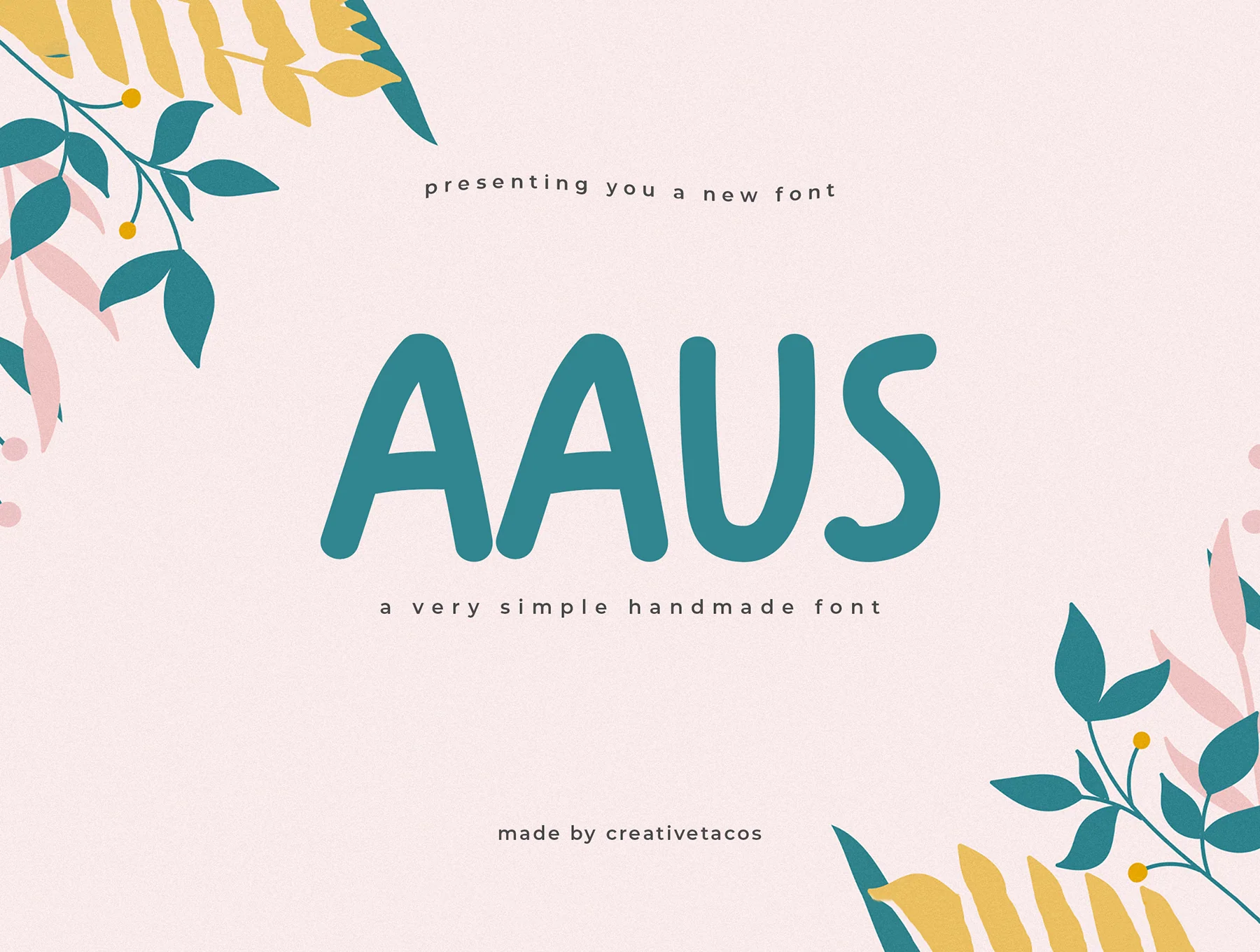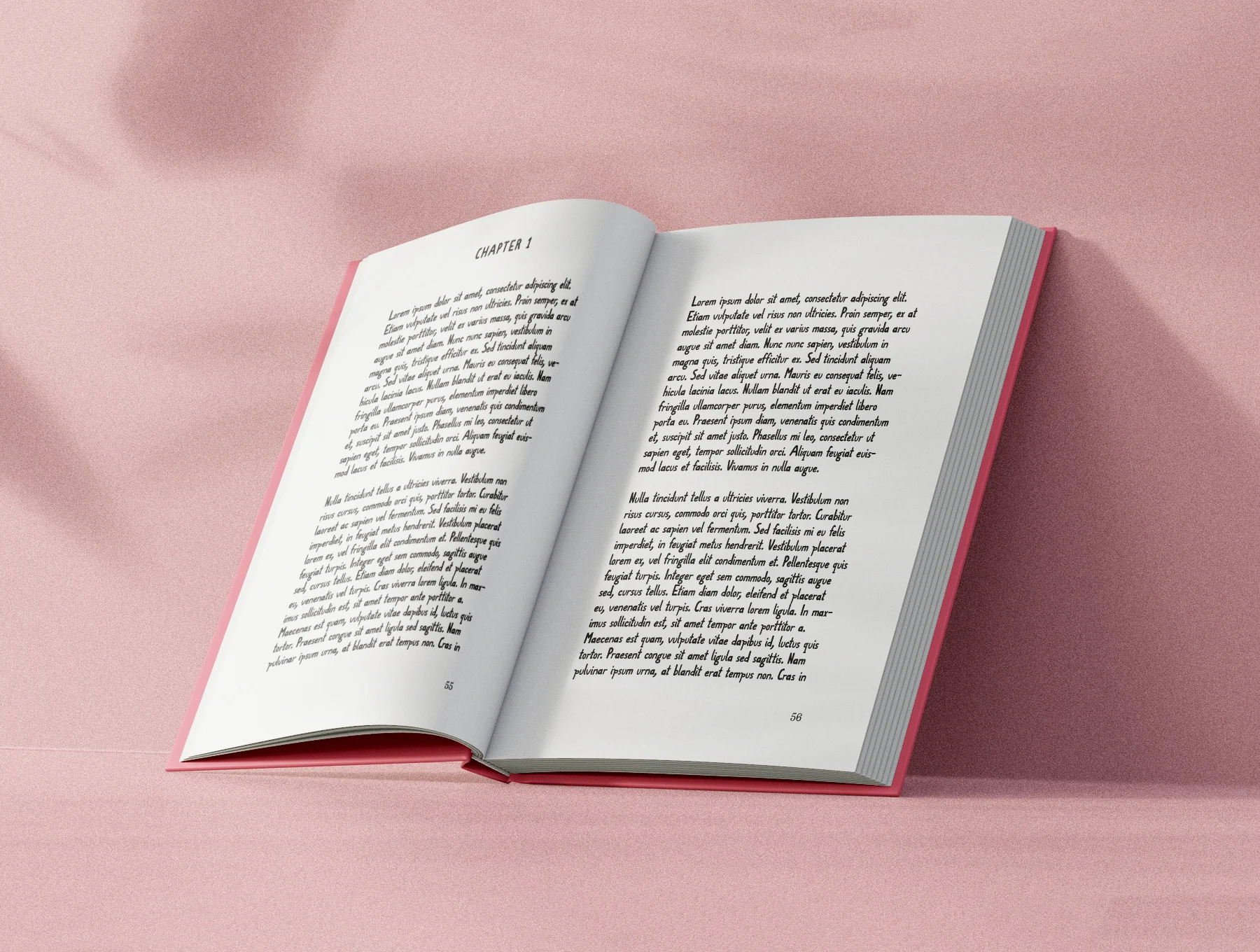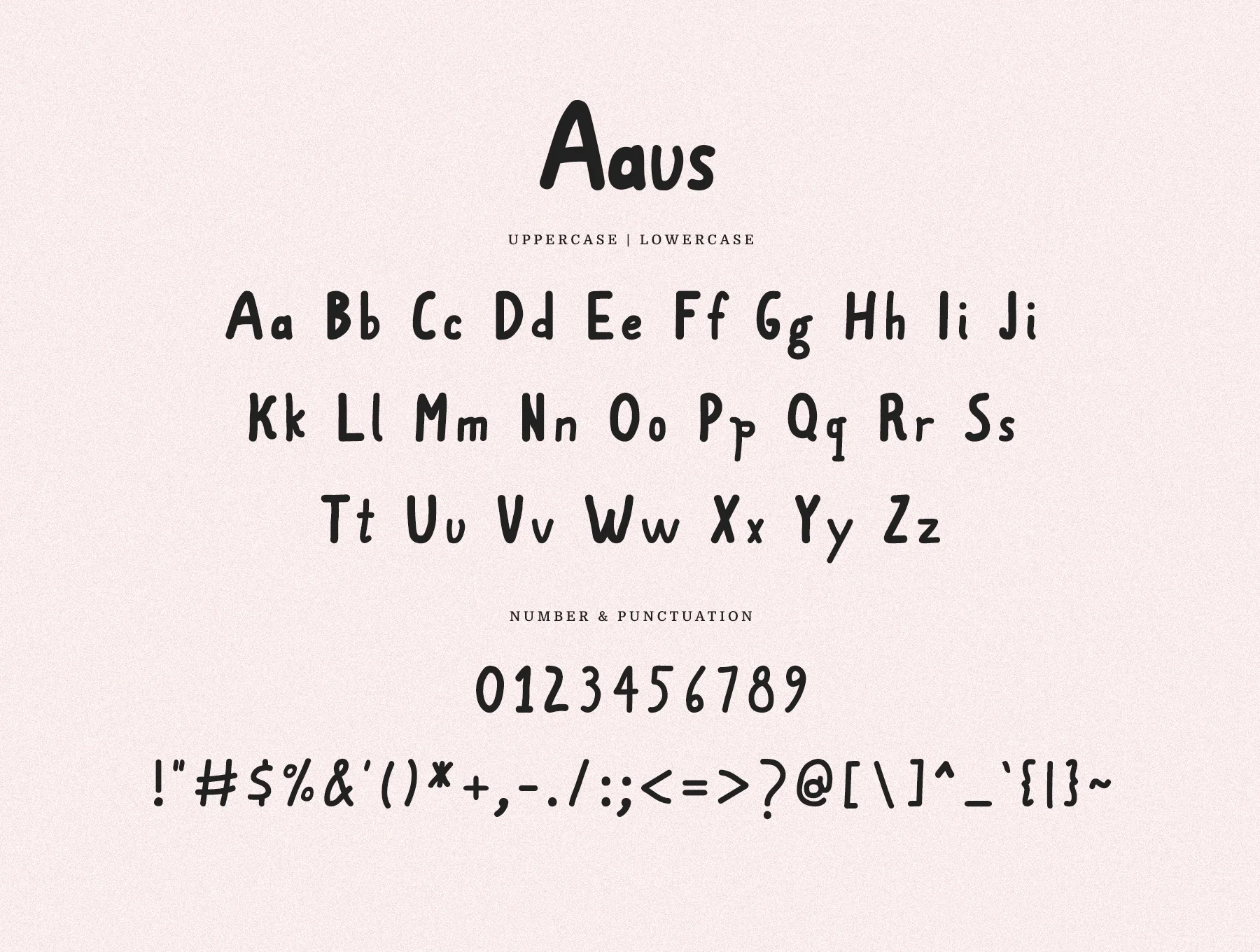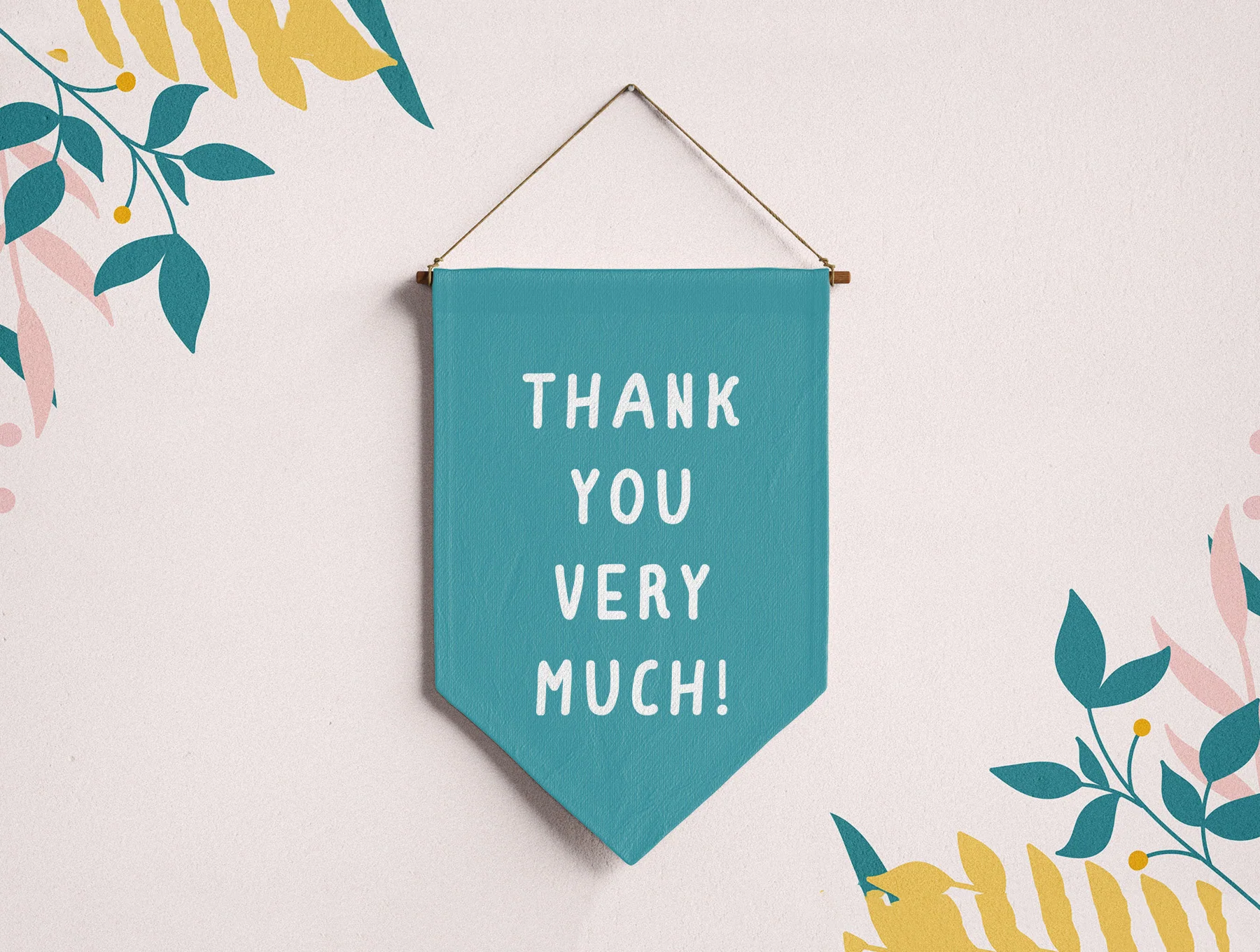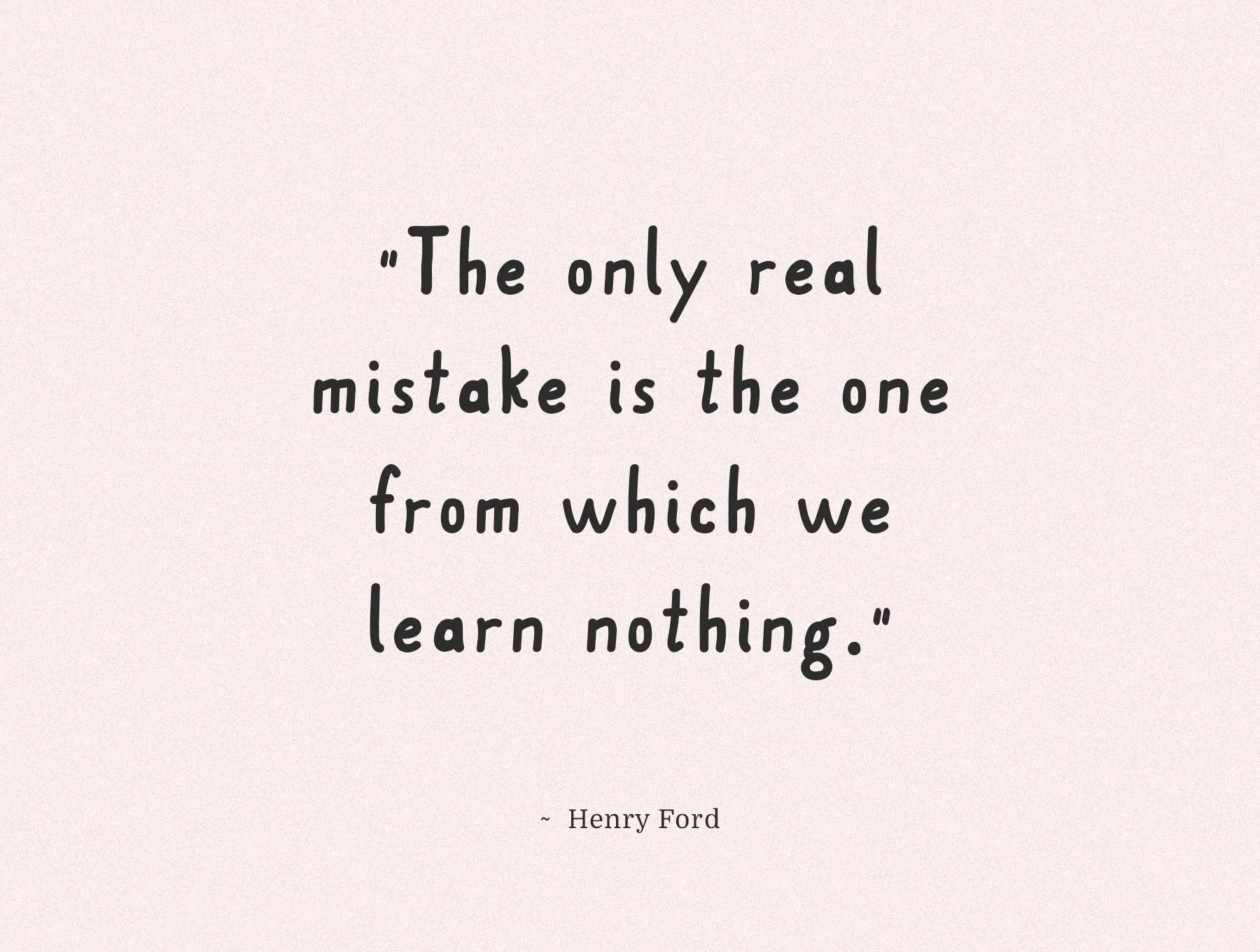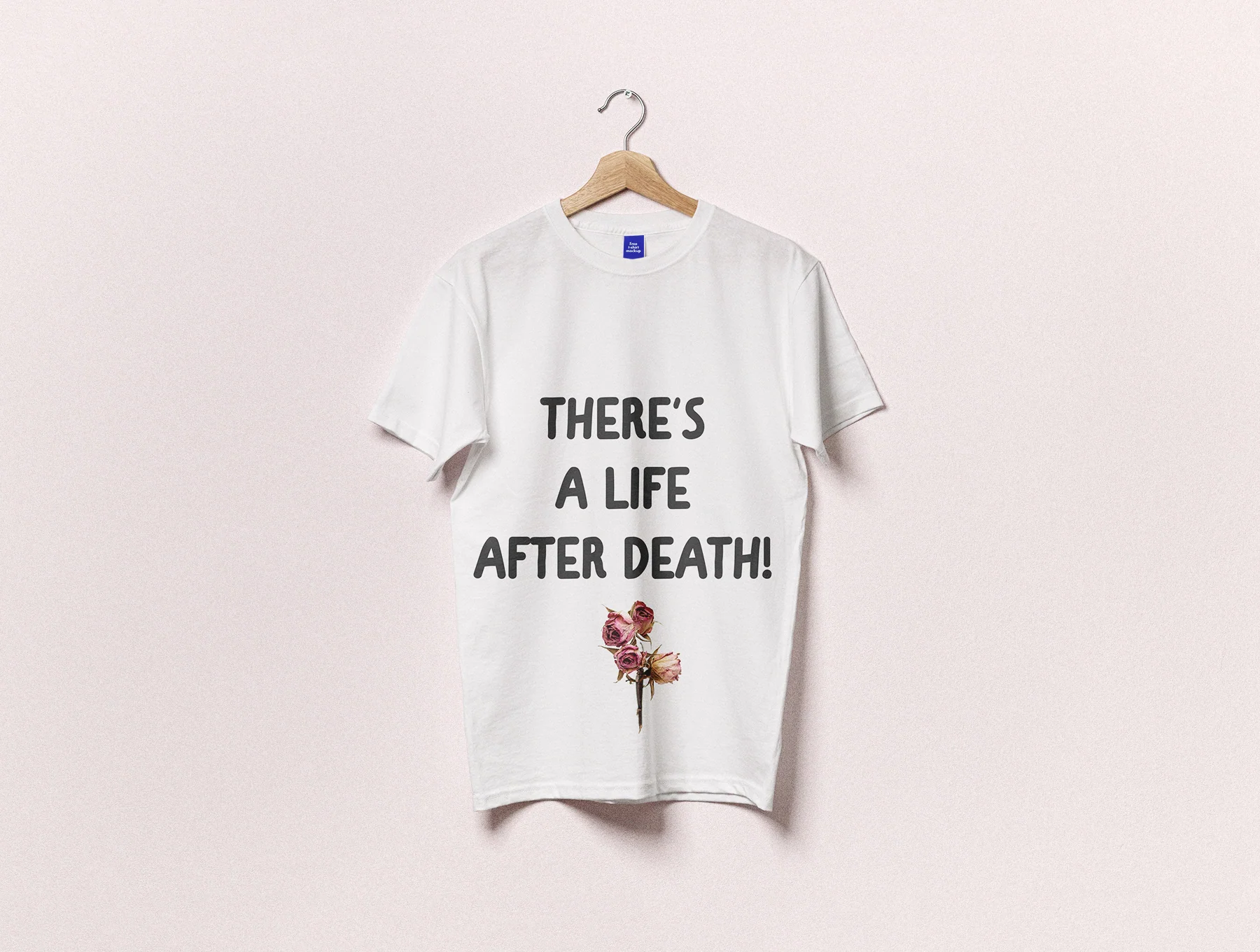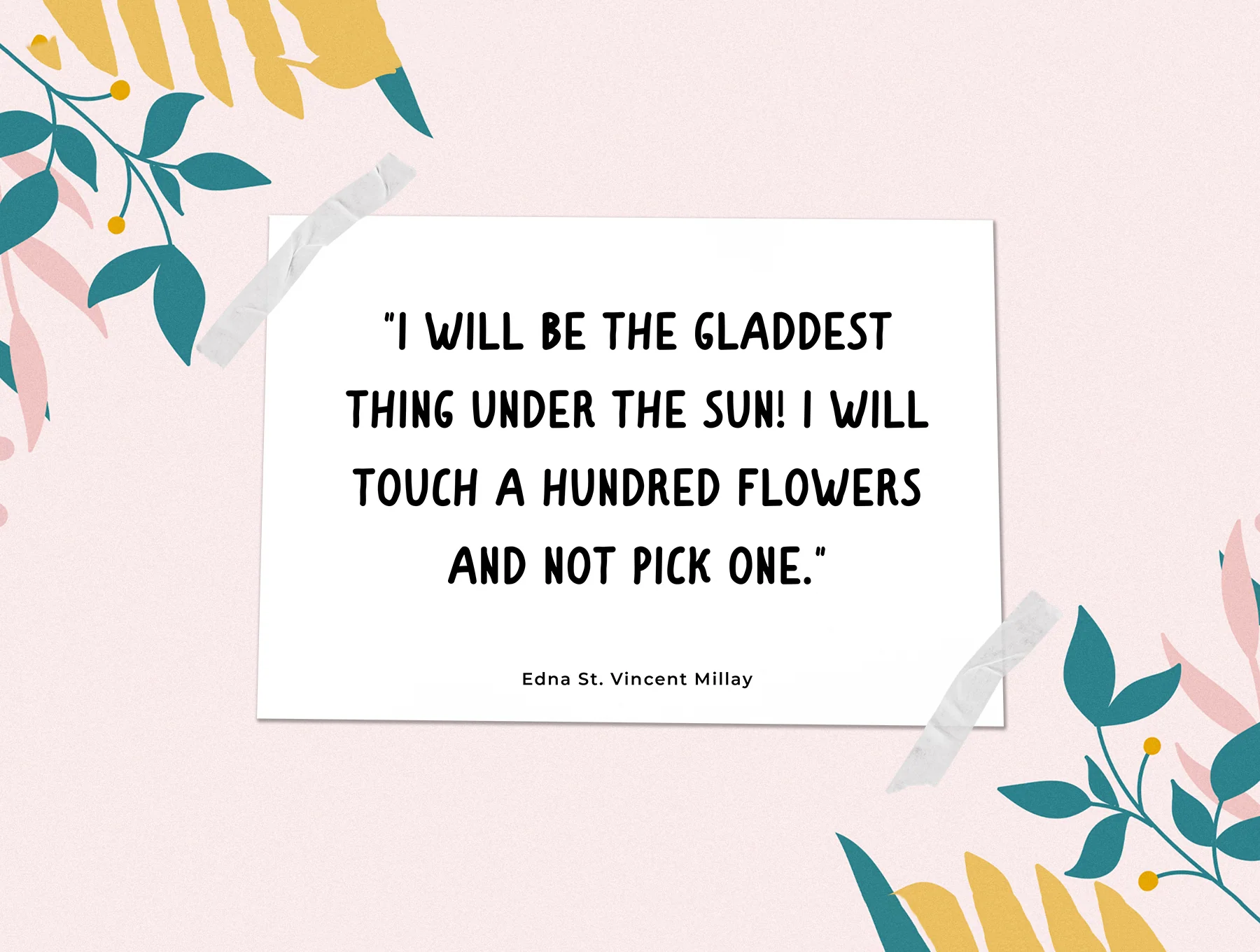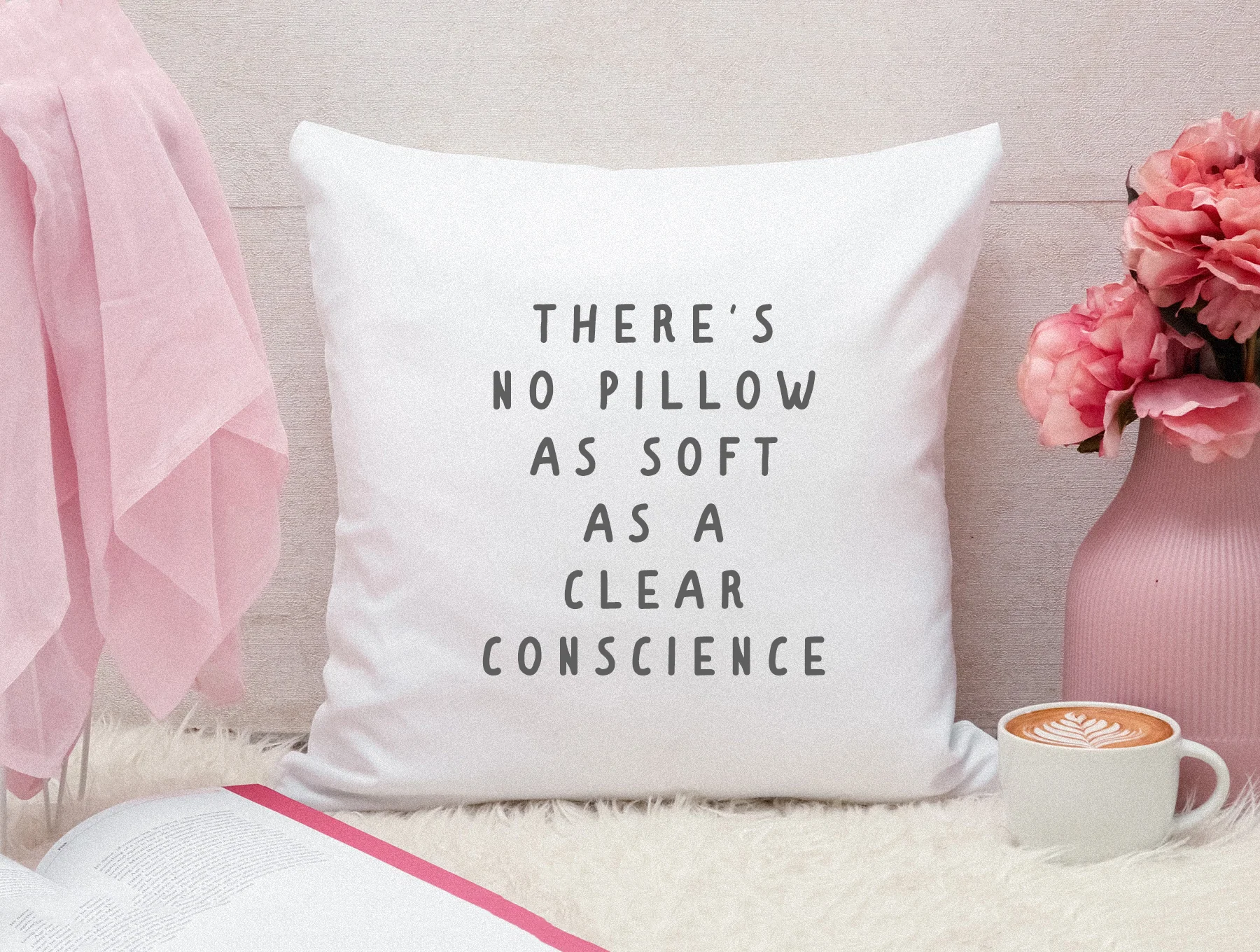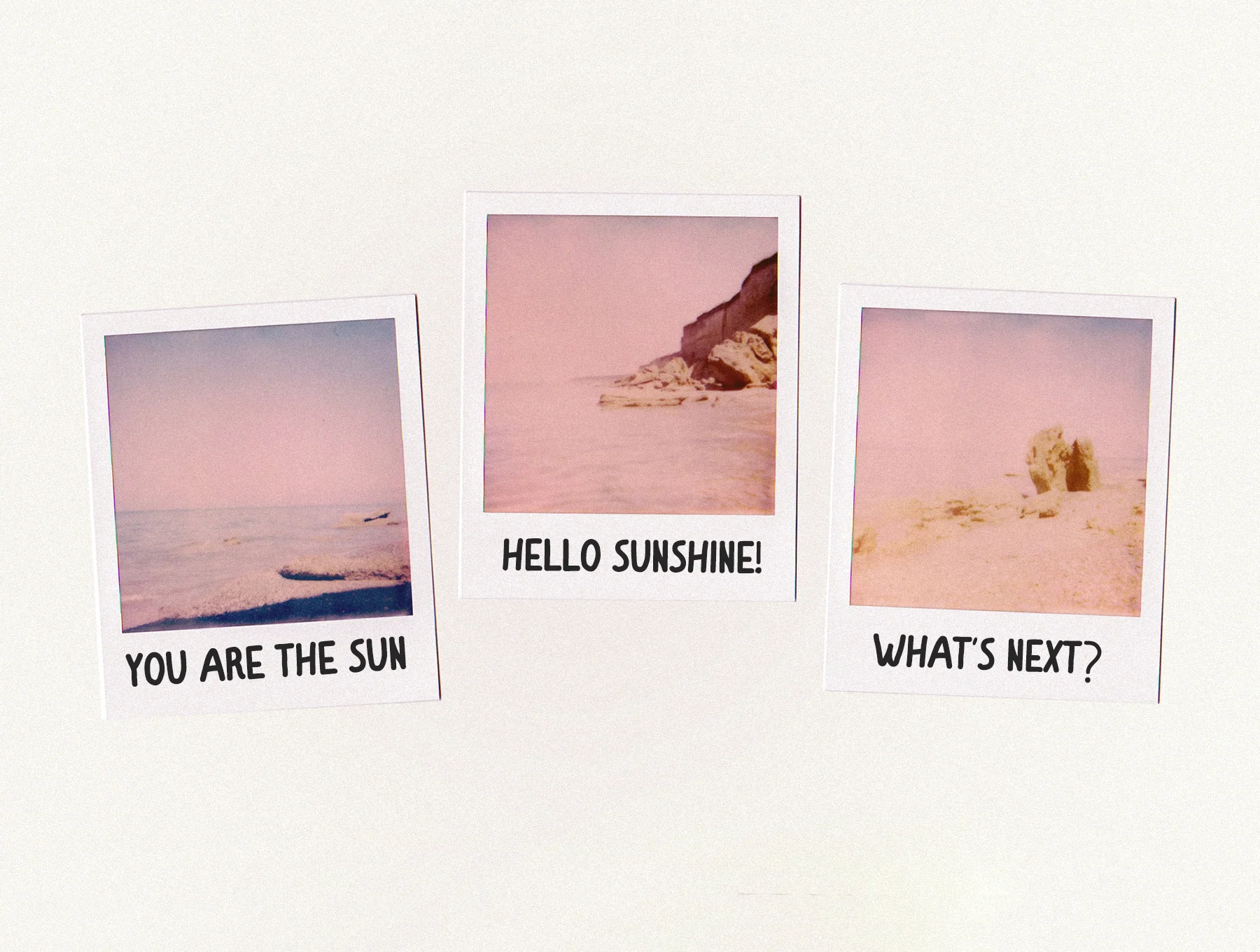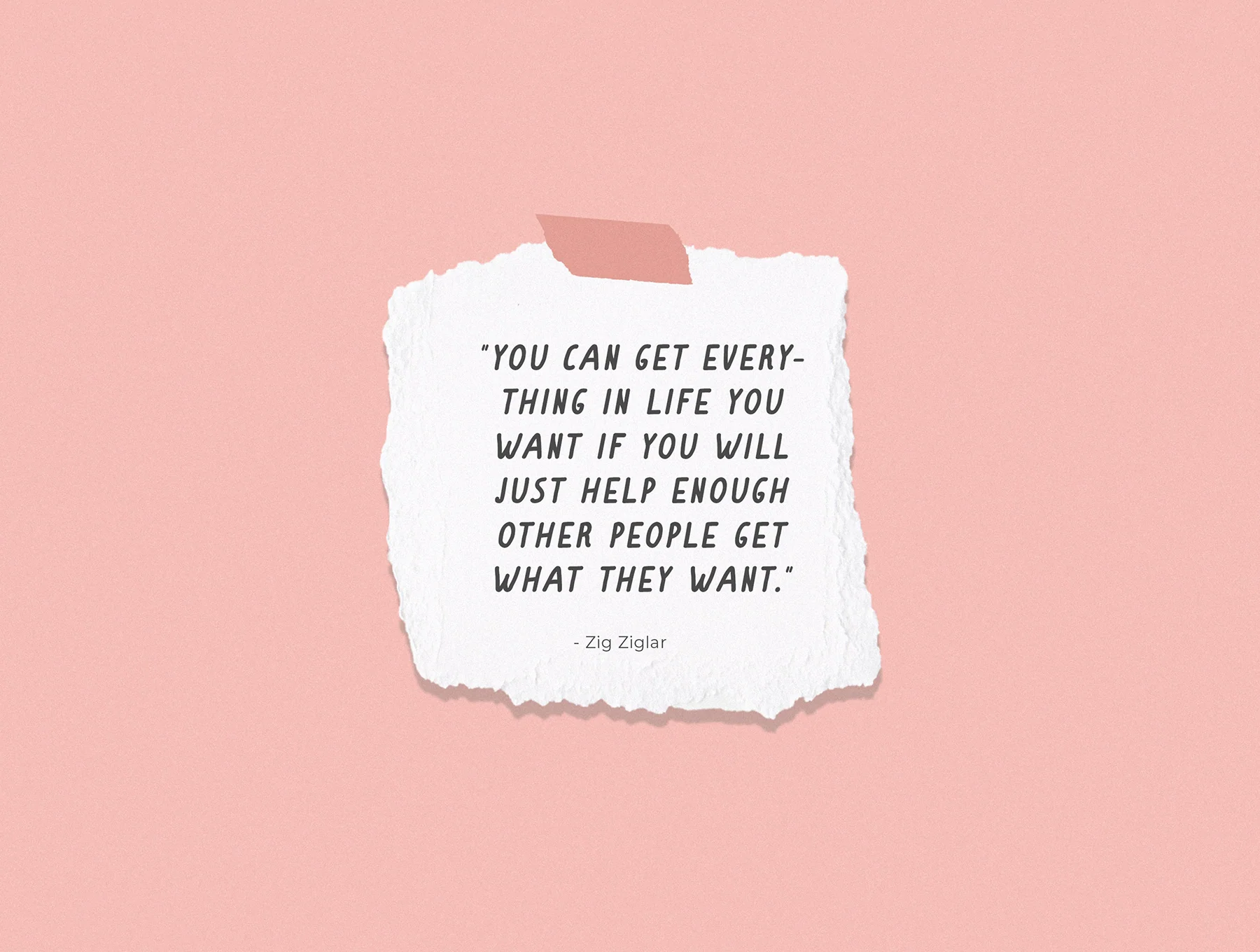
Aaus Handmade Brush Font
Aaus Handcrafted Brush Typeface
Handcrafted brush typeface
Set of 93 glyphs
Regular font style
Aaus is a charming natural brush font with a distinctive handwritten feel, adding lively character to creative work. It includes uppercase and lowercase letters, numerals, punctuation, and symbols. Ideal for logos, packaging, posters, branding, quotes, titles, notes, magazines, web designs, ads, invitations, children’s projects, books, and more. Files: OTF, TTF, Web Font Kit.